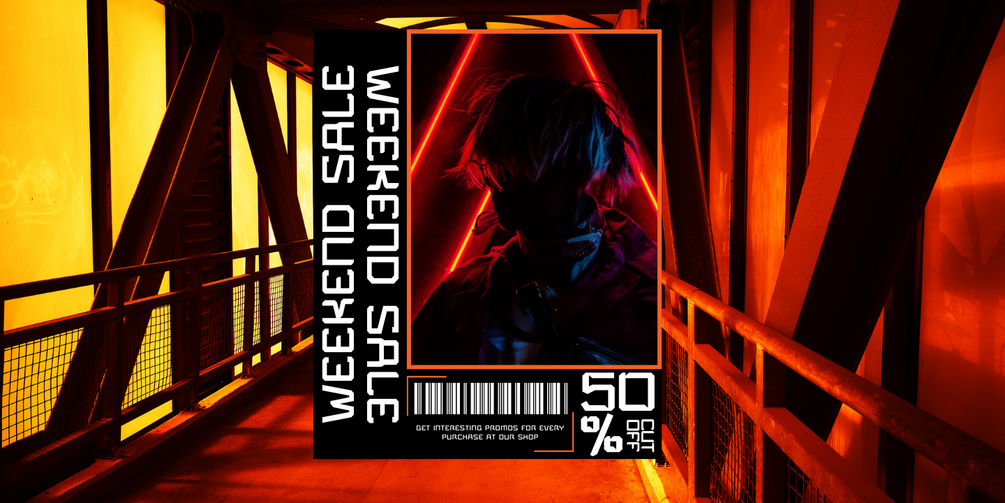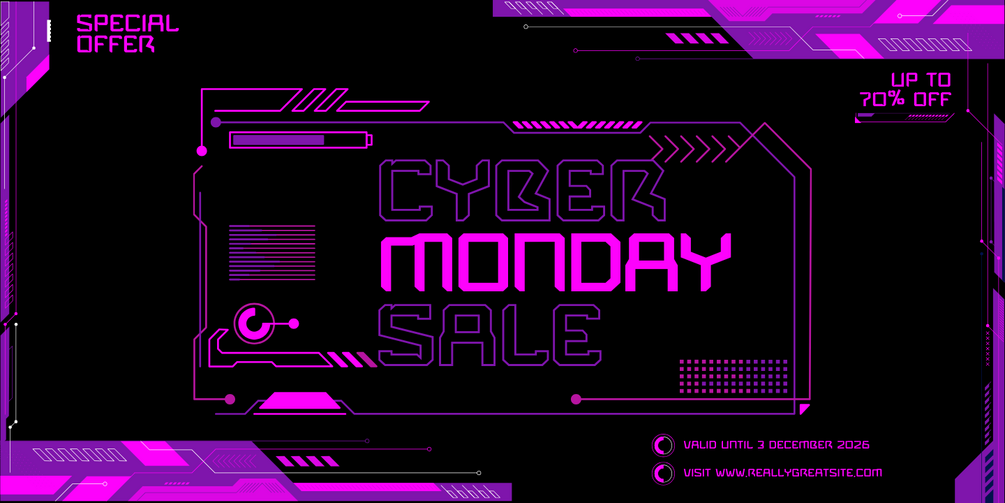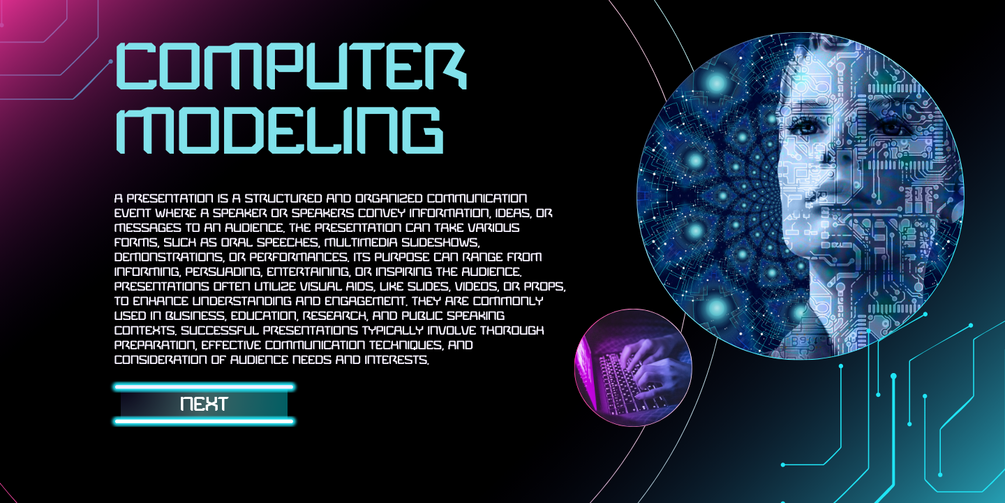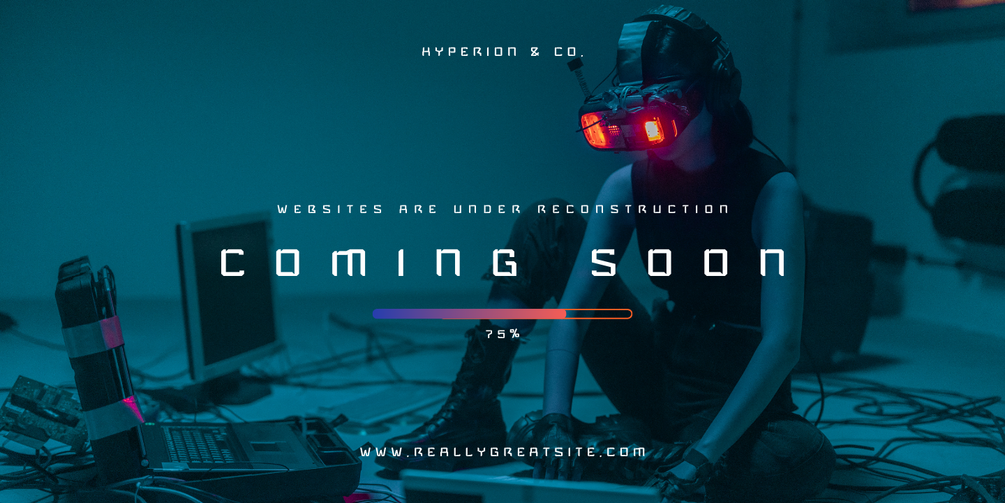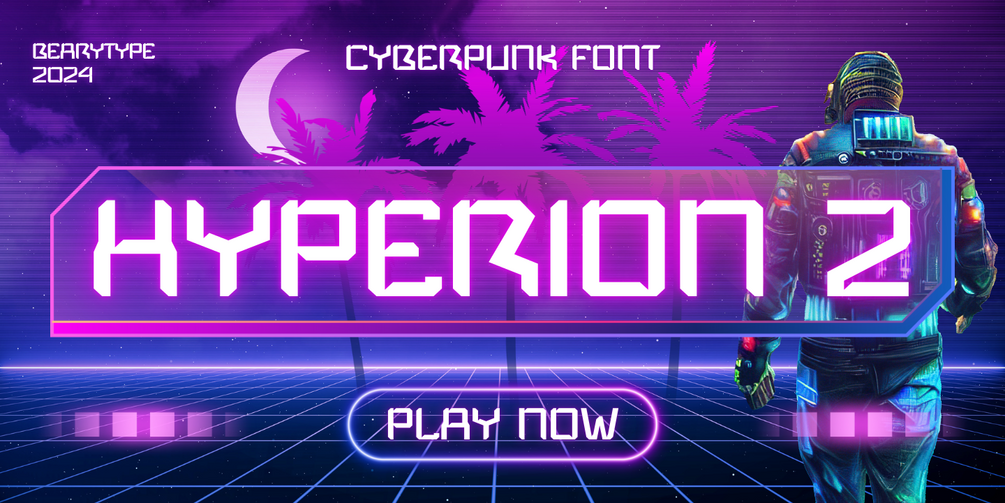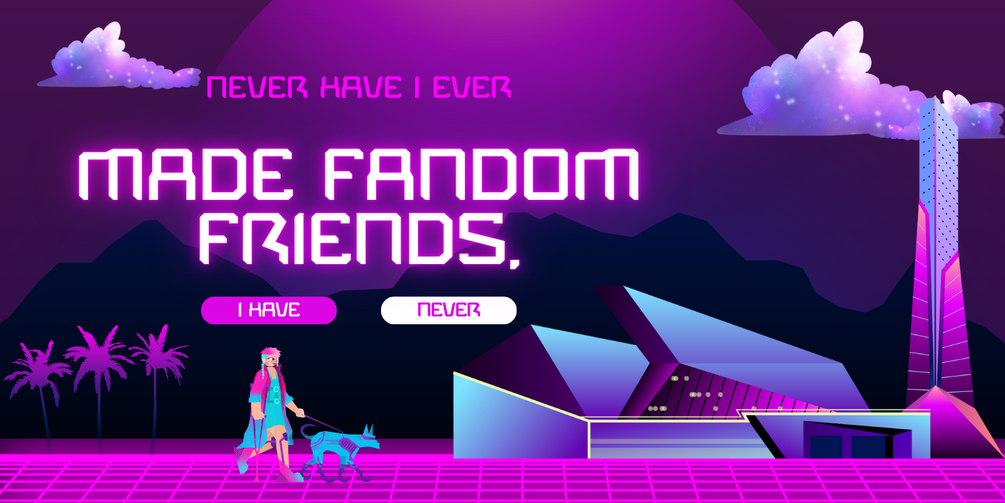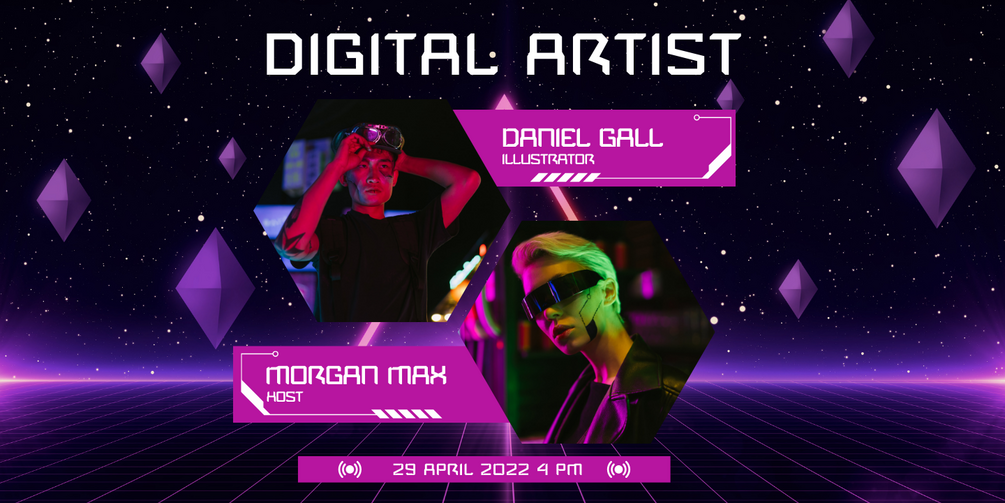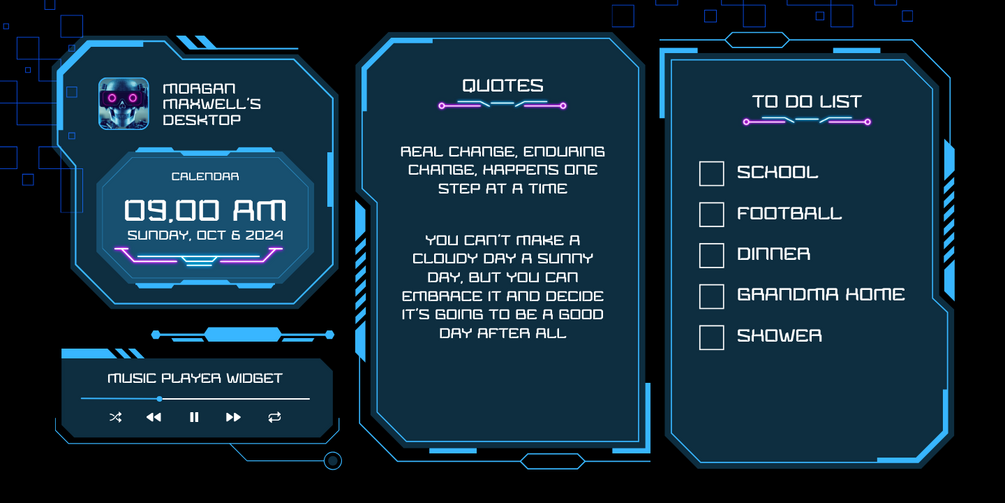
Hyperion - futuristic
Introducing Hyperion: a futuristic and technology-inspired font perfect for elevating your projects.
Whether you're designing applications, games, video thumbnails, t-shirts, posters, social media graphics, websites, or more, Hyperion has you covered.
Inside the Hyperion package, you'll find two unique versions: BT Hyperion and BT Hyperion 2, each with its own distinct flair.
Step into the future with Hyperion and transform your designs into captivating experiences.